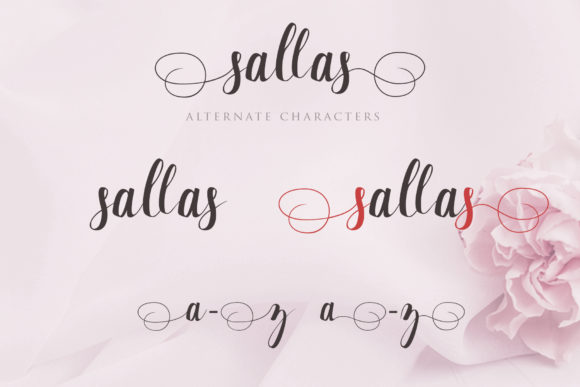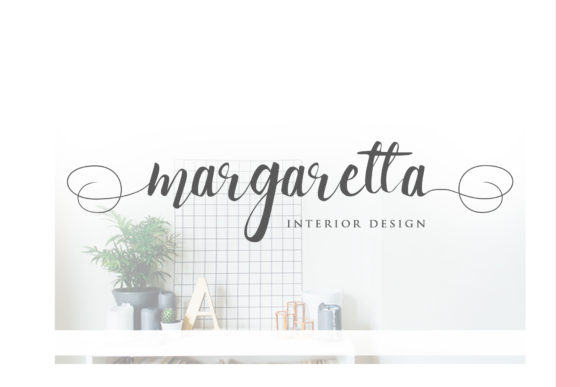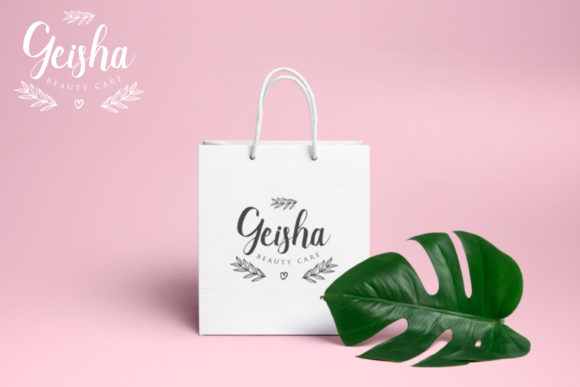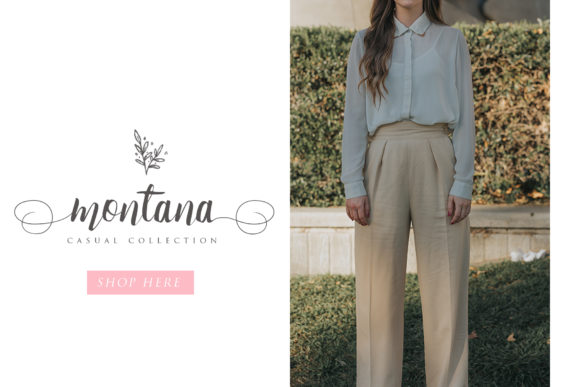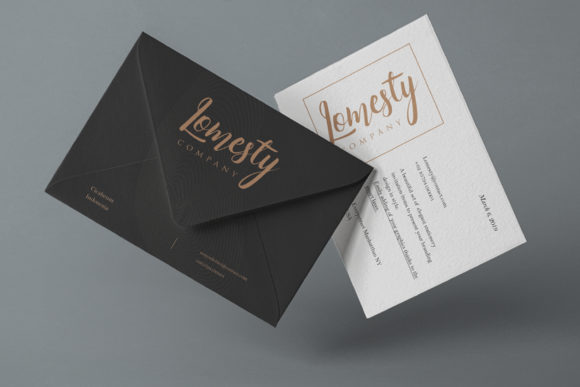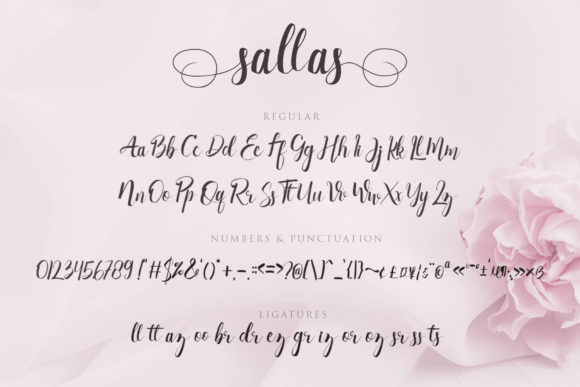
Sallas Font
About Sallas Font
Sallas feels equally charming and enchanting. This stunning handwritten font is a stylish homage to classic calligraphy. It will elevate a wide range of design projects to the highest level, be it branding, headings, wedding designs, invitations, signatures, logos, labels, and much more!